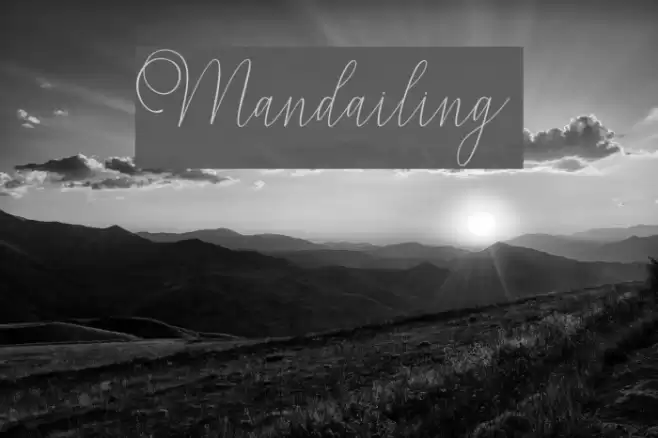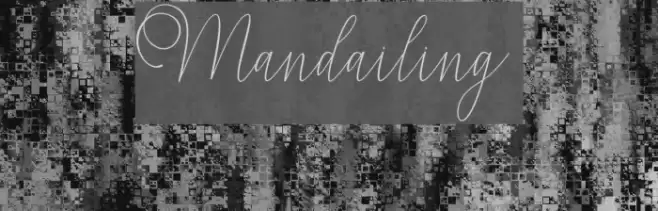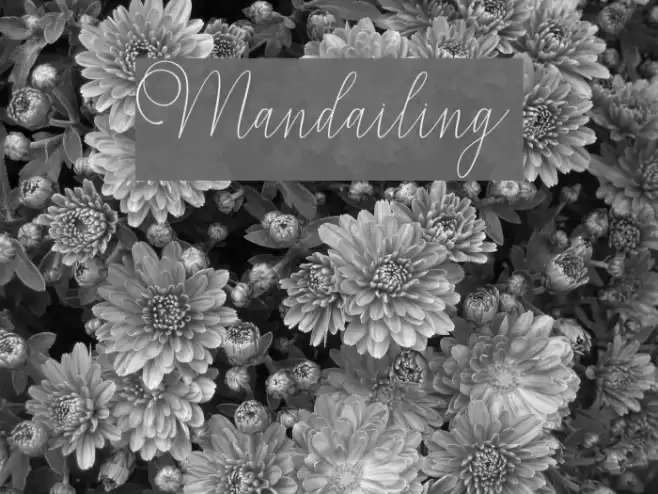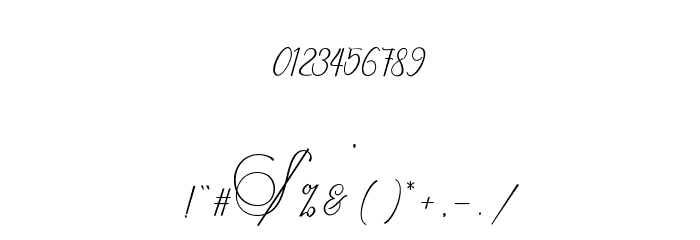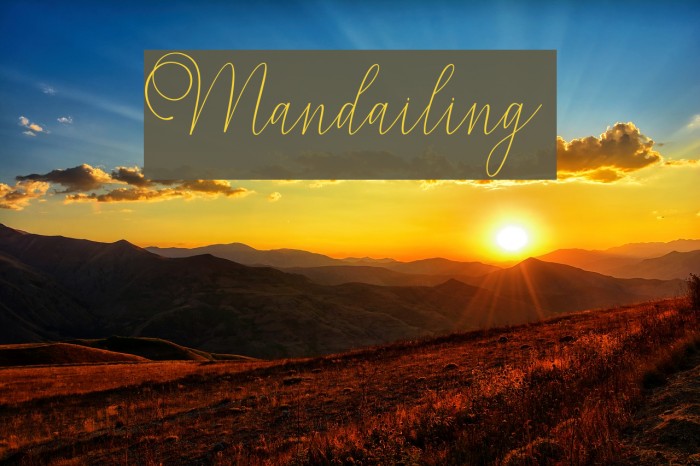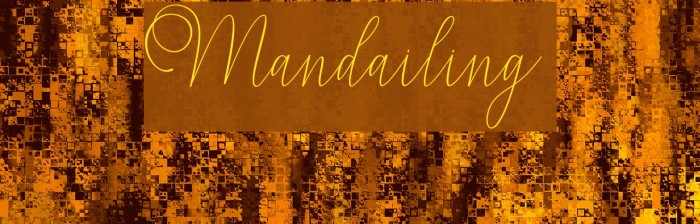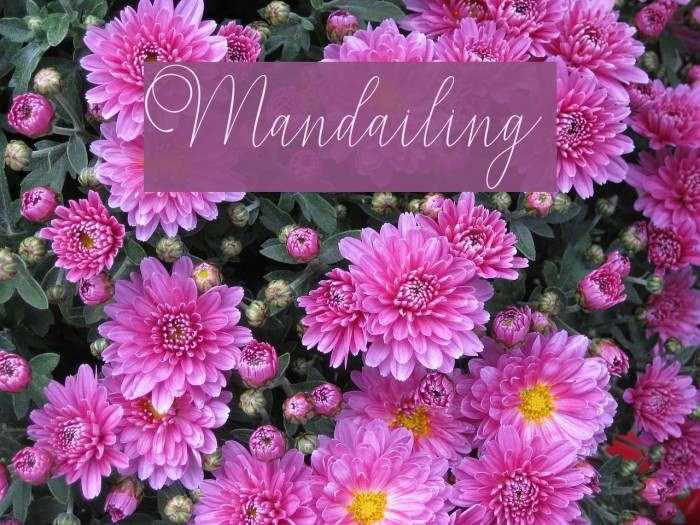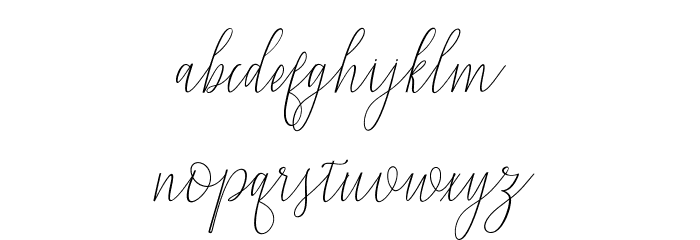
Mandailing Font
Mandailing Description
This elegant script font features intricate loops and swirls, giving it a sophisticated and artistic appearance. The uppercase letters are characterized by their elaborate flourishes, while the lowercase letters maintain a graceful flow, making it ideal for decorative purposes. The numerals are styled to match the overall aesthetic, with a consistent stroke width that complements the letterforms. Special characters are thoughtfully designed to integrate seamlessly with the rest of the font, enhancing its versatility. The font's delicate and refined style makes it suitable for formal invitations, branding, and other creative projects that require a touch of elegance.
An elegant script font with intricate loops and swirls, perfect for decorative use from Uncategorized fonts.
- Proposed Projects: Ideal for wedding invitations, luxury branding, greeting cards, and elegant packaging design.
- Use Case: Logos, Invitations, Decorative text